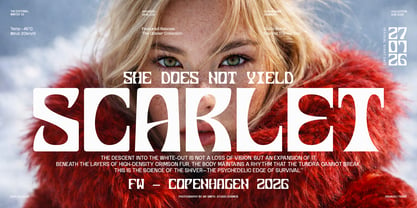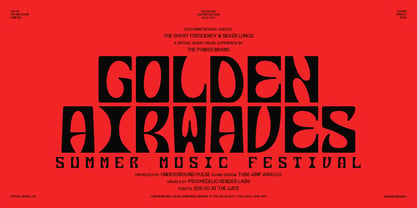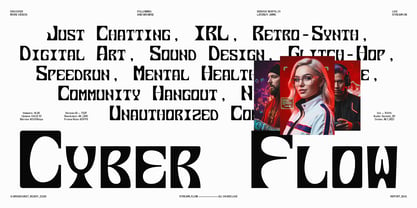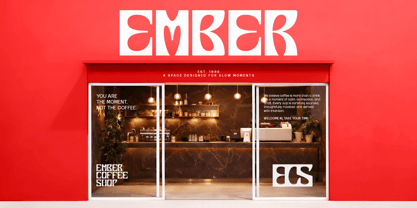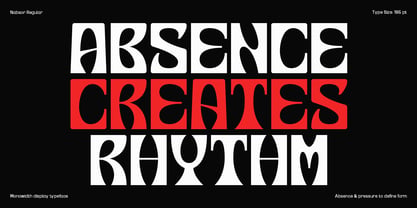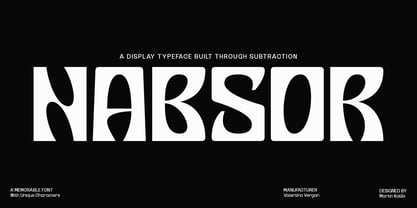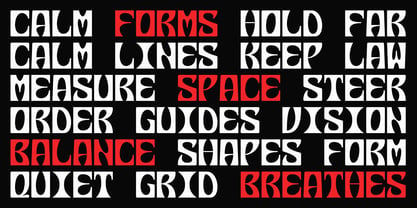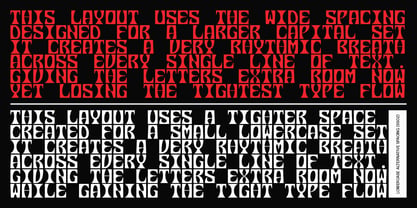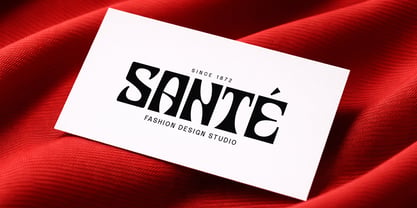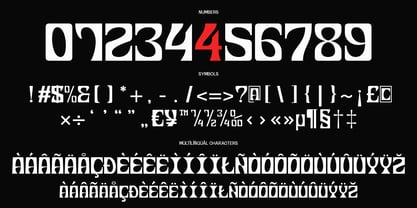
Nabsor
by Valentino Vergan
The Nabsor Font Family was designed by Martin Katibi and published by Valentino Vergan. Nabsor contains 2 styles and family package options. More about this family
Nabsor is a structured display typeface built on a precise monowidth grid system. Every character aligns to a consistent rhythm, creating clean typographic blocks with strong visual order. The design balances a psychedelic edge with structural clarity, creating letterforms that feel experimental yet intentional, this makes it ideal for branding, editorial layouts, banners, posters, album artwork, fashion visuals, and architectural or spatial typography where presence matters. The design explores how much can be removed without losing identity. Counters are exaggerated, strokes breathe, and spacing becomes part of the form. The result is a font that feels bold without shouting - confident, graphic, and unmistakably modern. The typeface includes Regular and Oblique styles, carefully crafted to maintain harmony across uppercase, lowercase, numbers, and symbols. A dual-spacing system allows optimized spacing for both uppercase compositions and lowercase text, offering maximum flexibility while preserving the grid-based structure. If you’re looking for a typeface that sits between art and system, between experimentation and control, Nabsor delivers a distinctive voice that stands apart without trying too hard.
Designers: Martin Katibi
Foundry: Valentino Vergan